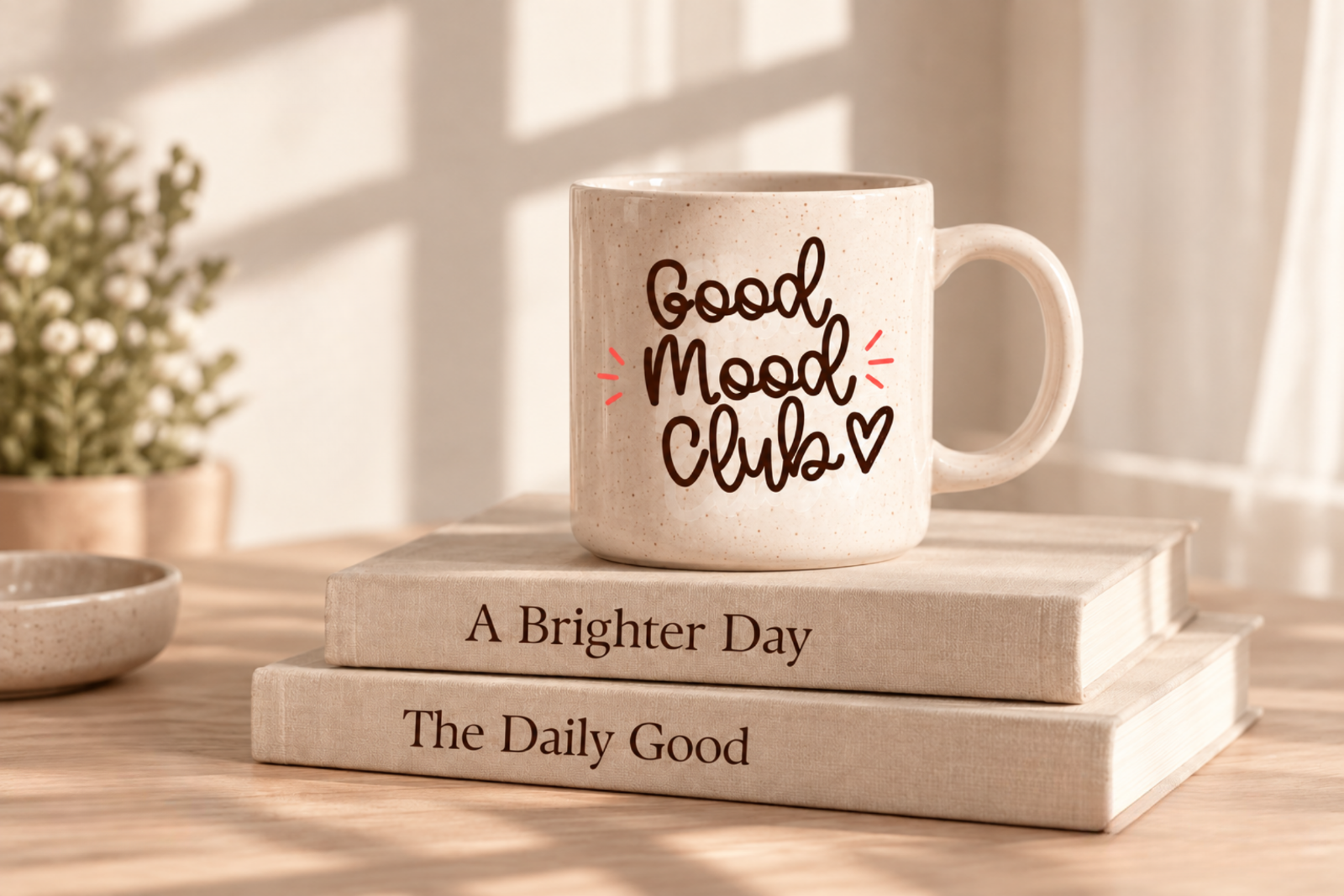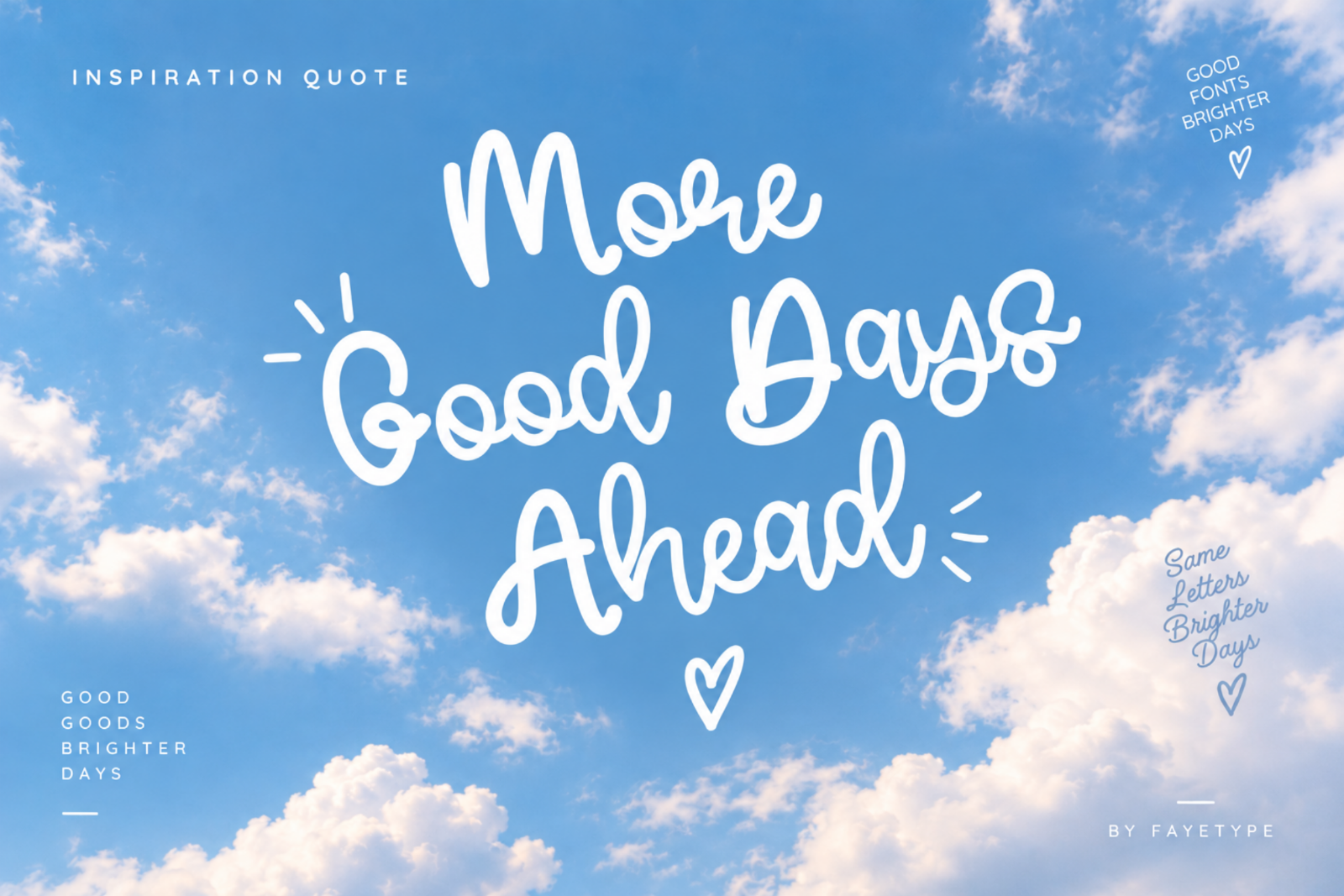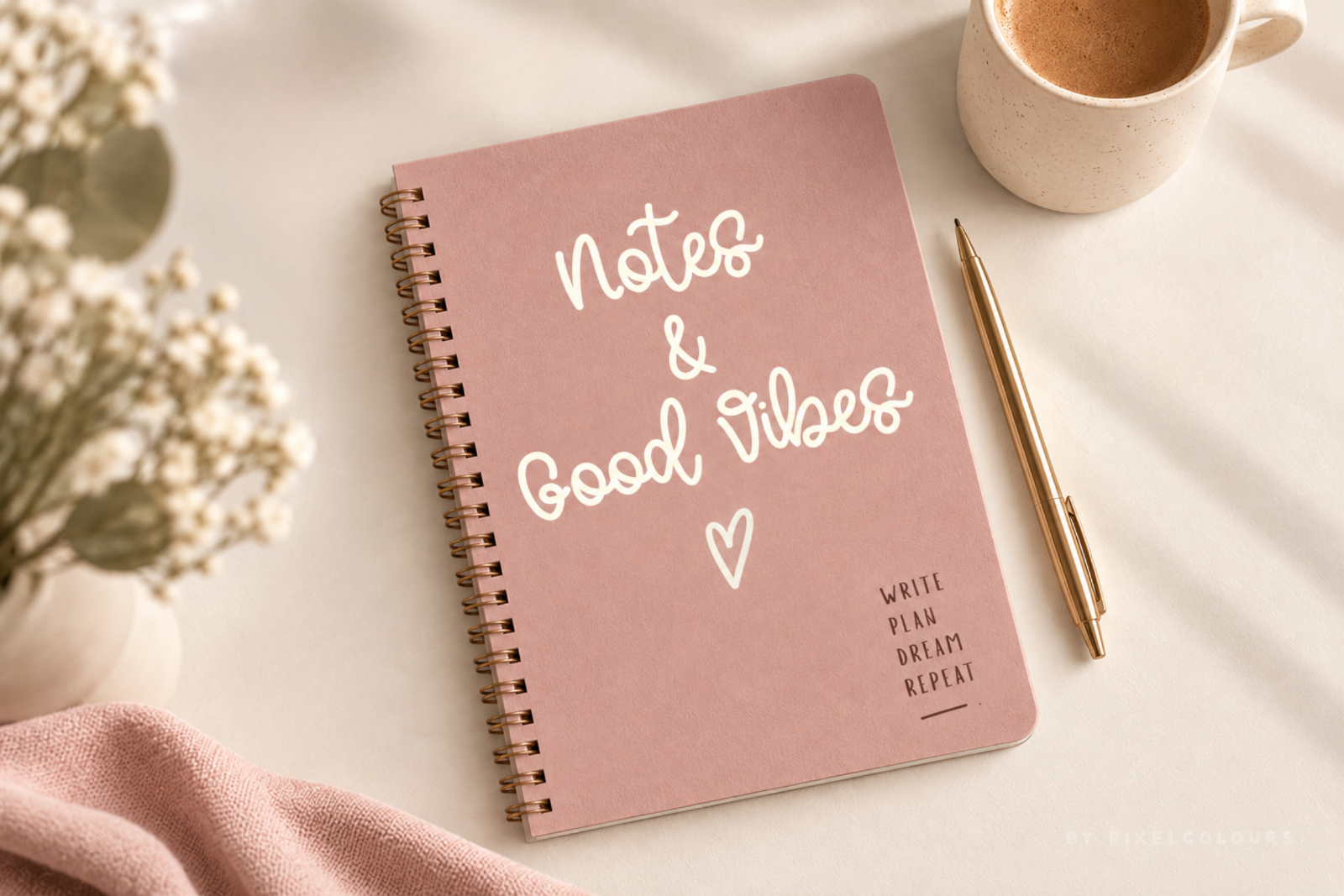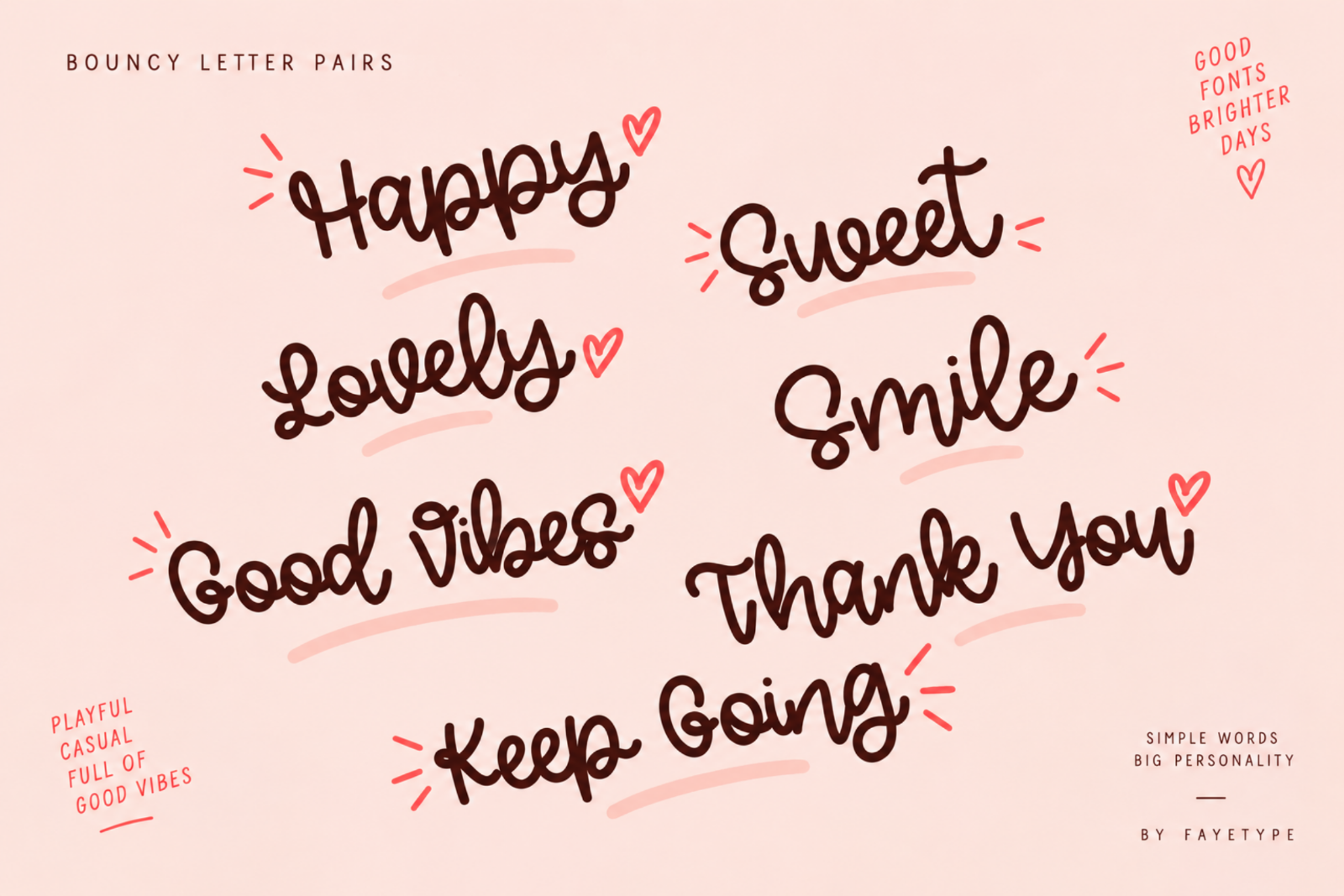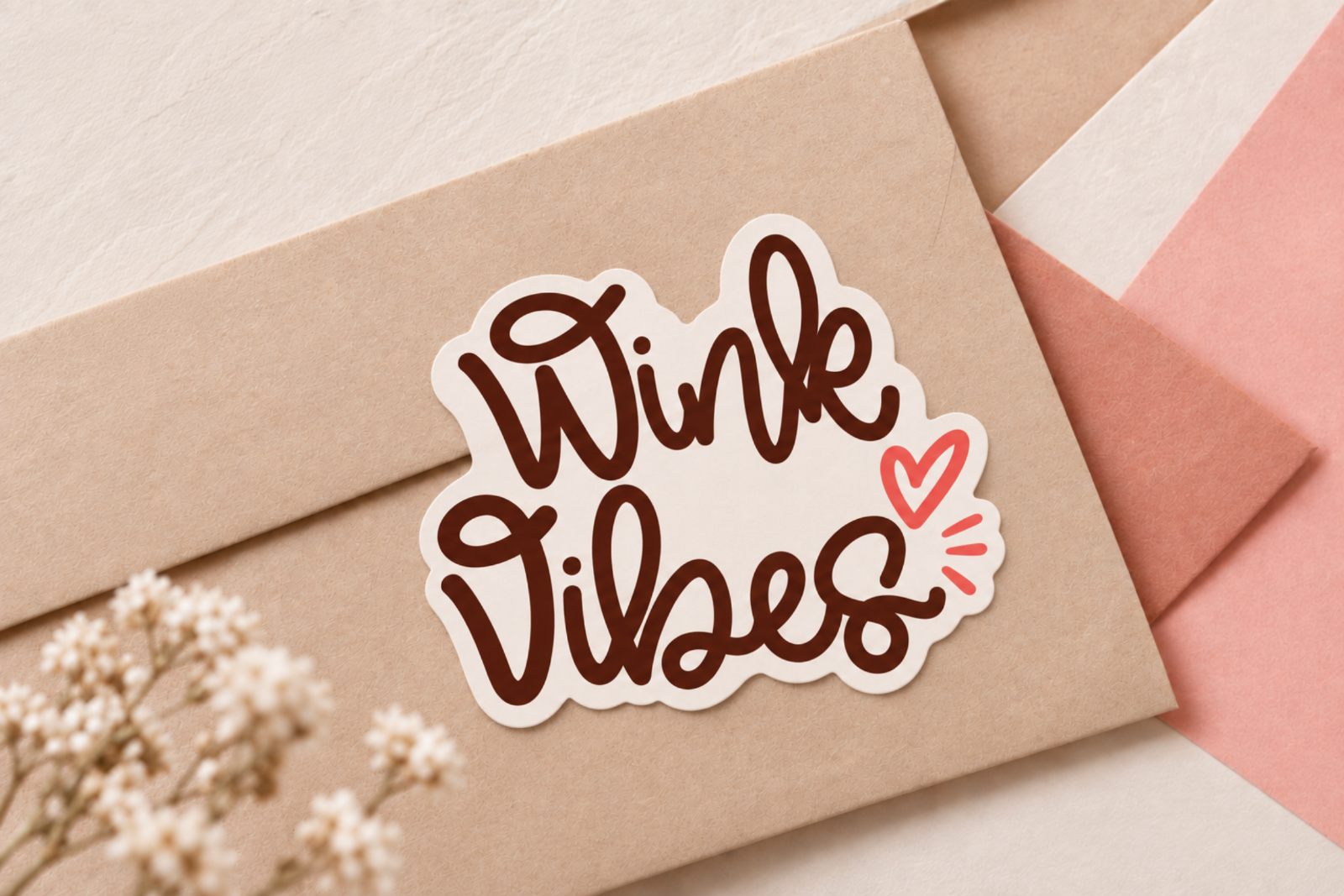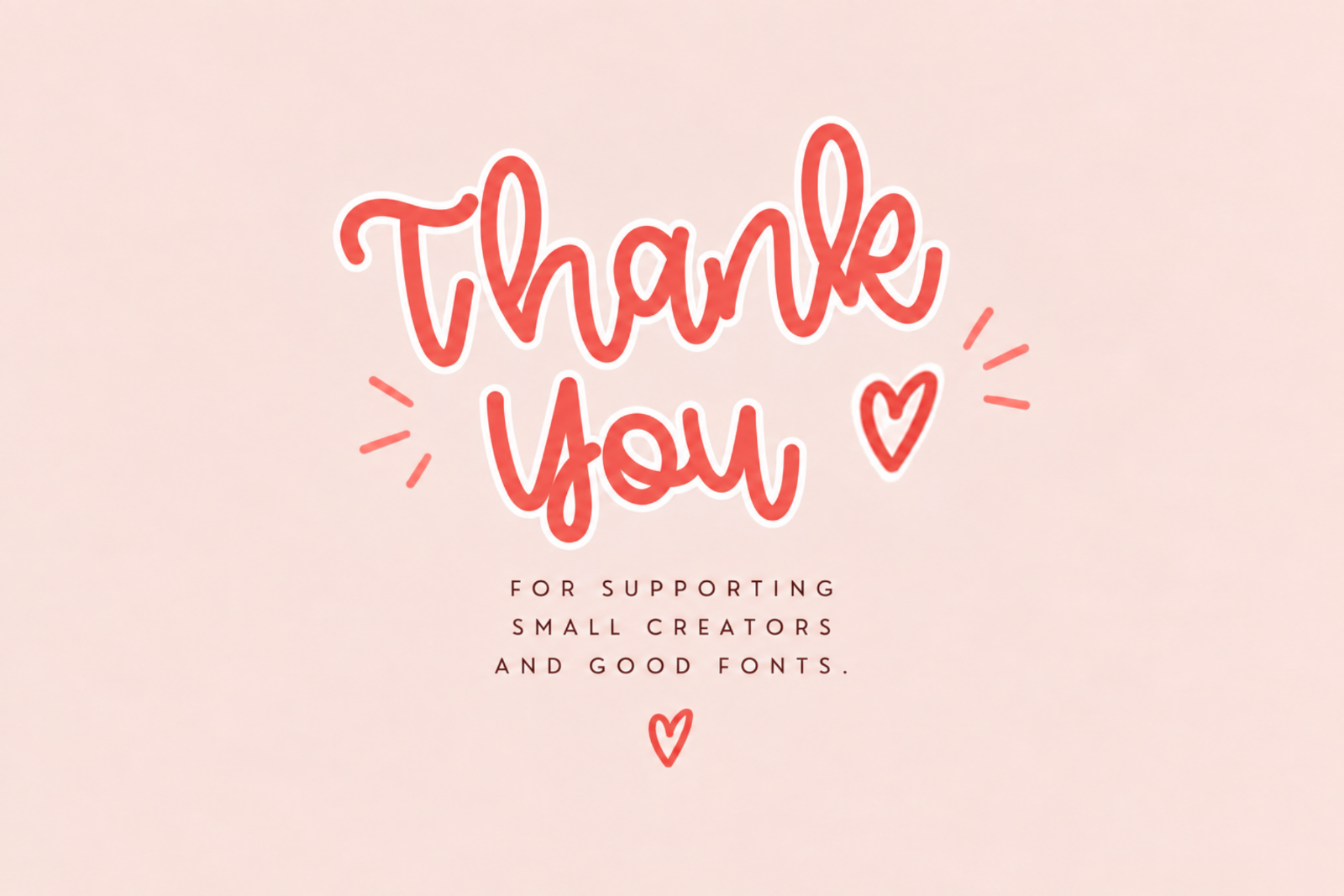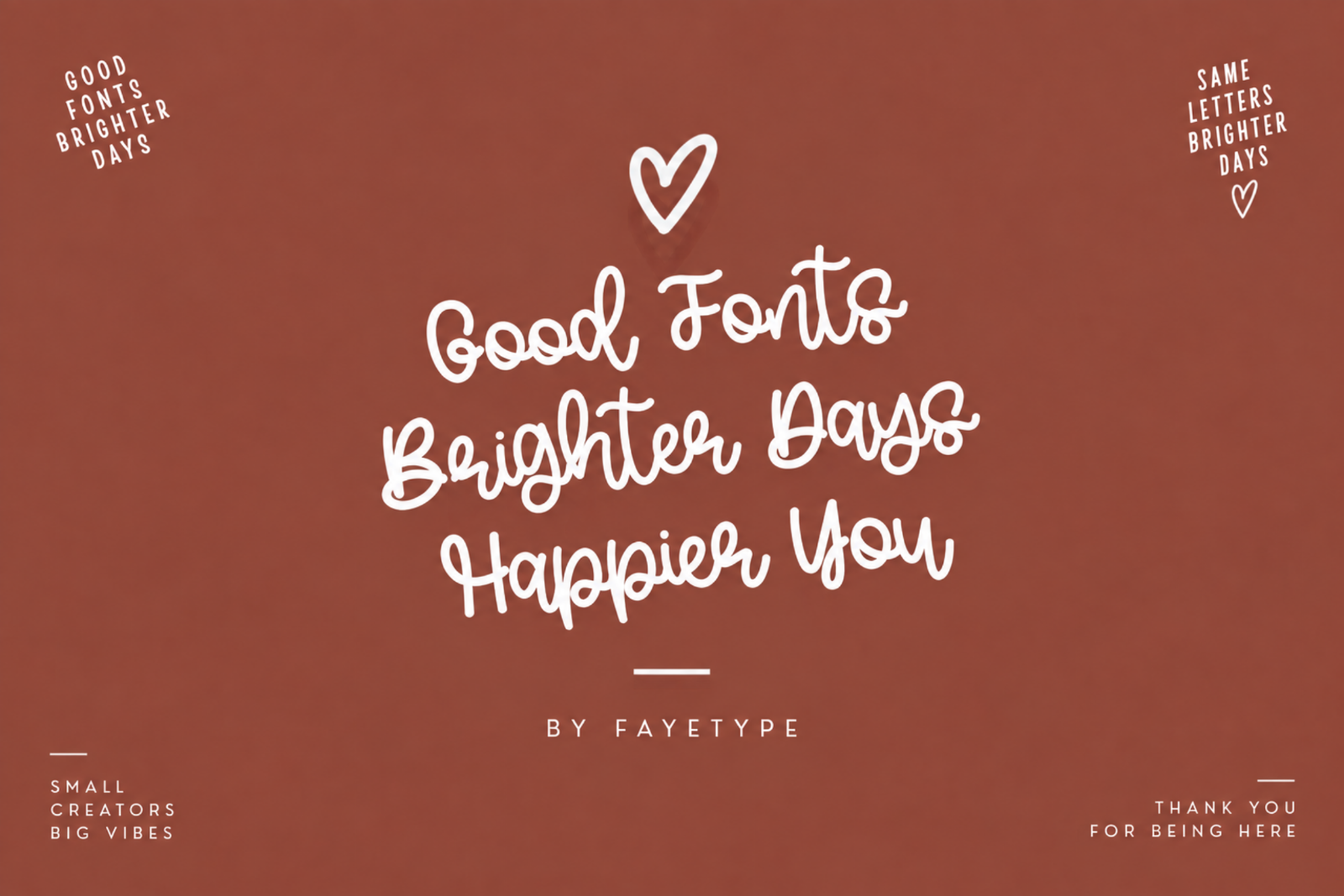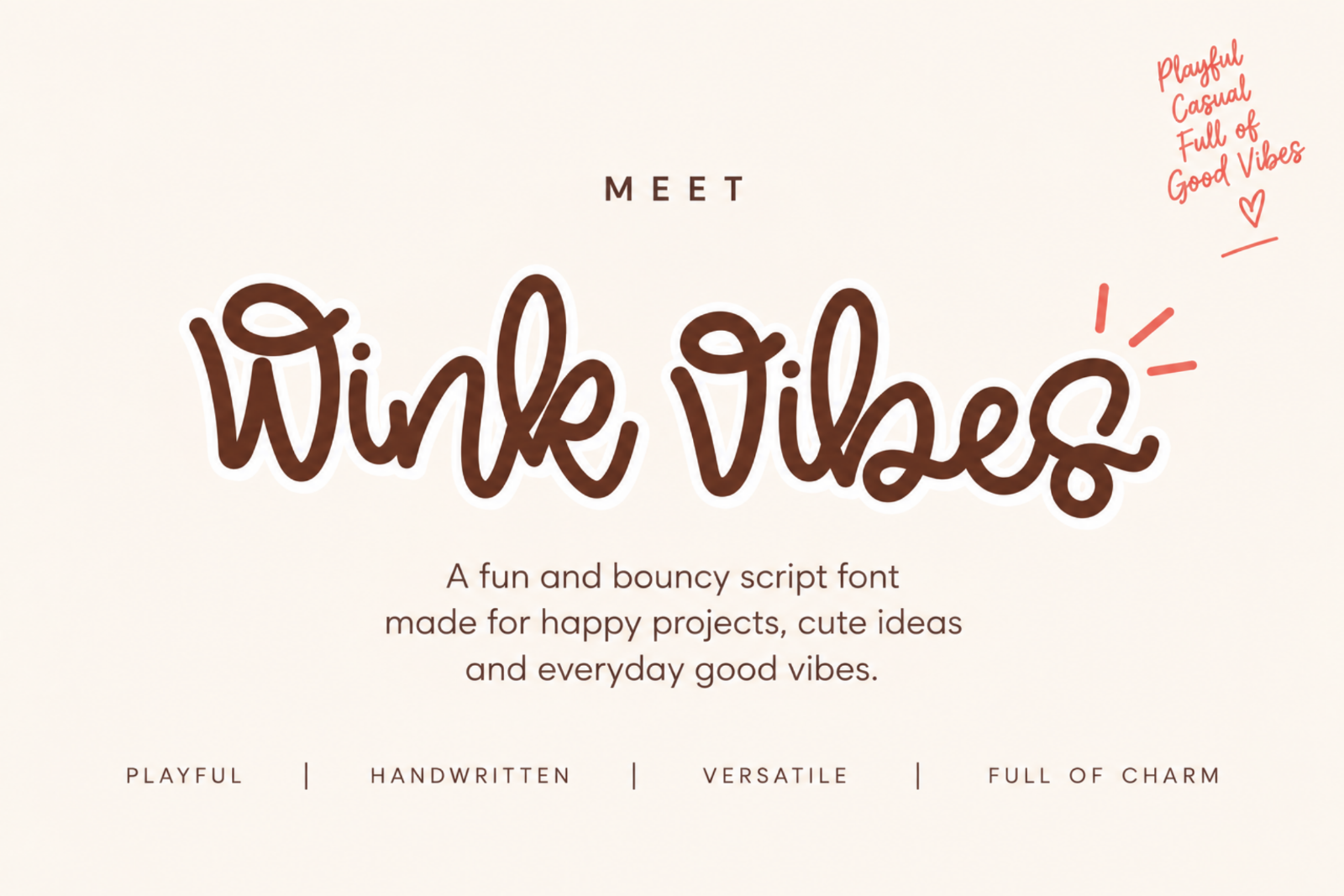
Wink Vibes – Boiuncy Handwritten Script Font for Branding & Cricut
Meet Wink Vibes — a playful handwritten script font made for brighter, happier designs.
With its smooth curves, casual handwritten flow, and bouncy personality, Wink Vibes brings a warm handmade feel to everything from branding and social media graphics to apparel, stickers, packaging, and creative merchandise.
Its relaxed letterforms are designed to feel personal and expressive while staying clean and easy to read — perfect when you want typography that feels friendly, youthful, and full of personality.
• Logos & playful branding
• T-shirts & apparel
• Tote bags & merchandise
• Stickers & labels
• Social media quotes
• Product packaging
• Greeting cards & stationery
• Posters & inspirational quotes
• Cricut & cutting projects
• Journals, planners & digital designs
Whether you're creating a cheerful lifestyle brand, a cute T-shirt design, a handmade product label, or a simple social media quote, Wink Vibes adds that little handwritten touch that makes the design feel more personal.
Small letters. Big vibes.